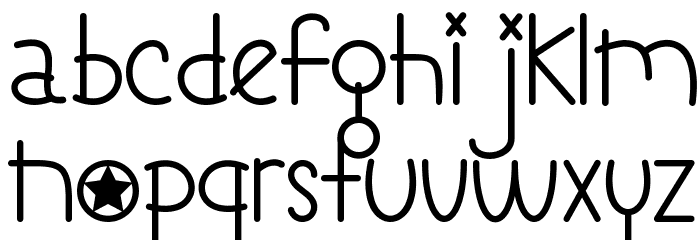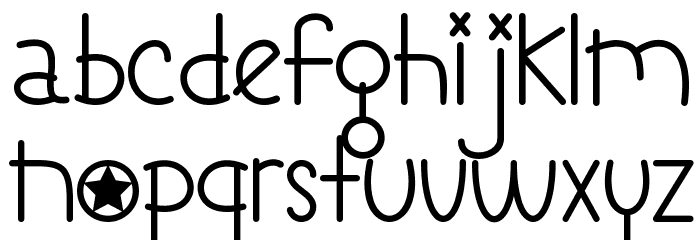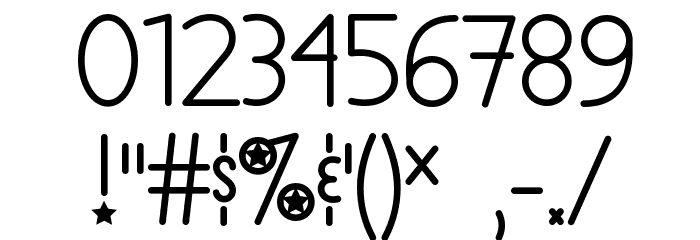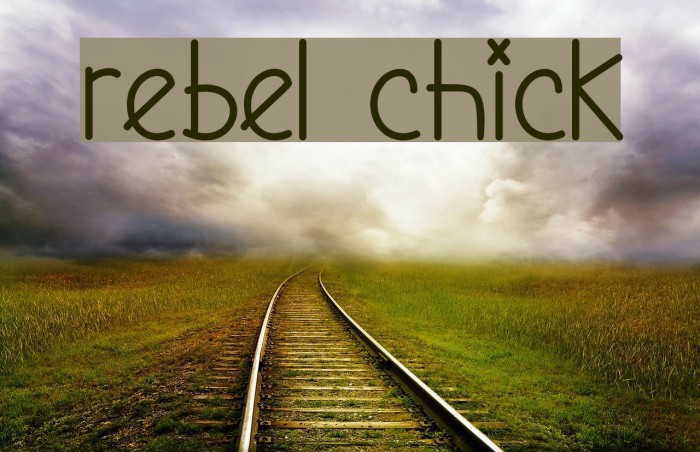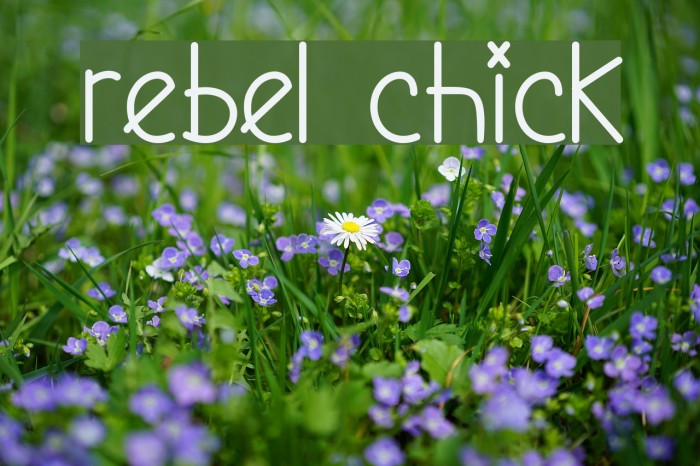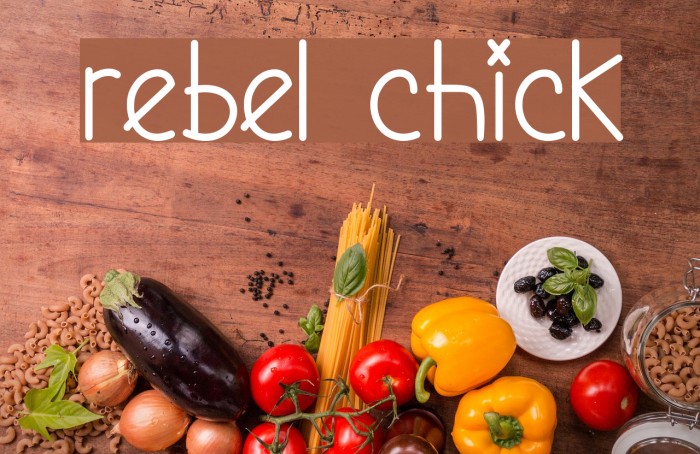
Rebel Chick Font
This playful and quirky font features a unique and whimsical design with rounded edges and a consistent stroke width. The characters are adorned with decorative elements such as stars and circles, adding a touch of fun and creativity. The font maintains a uniform height across both uppercase and lowercase letters, creating a harmonious and balanced appearance. Its distinctive style makes it suitable for projects that require a lighthearted and informal tone. The numerals and special characters are crafted with the same playful flair, ensuring consistency throughout the typeface.
A playful and whimsical font with decorative elements and rounded edges.
- Proposed Projects: Ideal for children's books, playful branding, party invitations, and creative posters.
- Overall Style: Playful